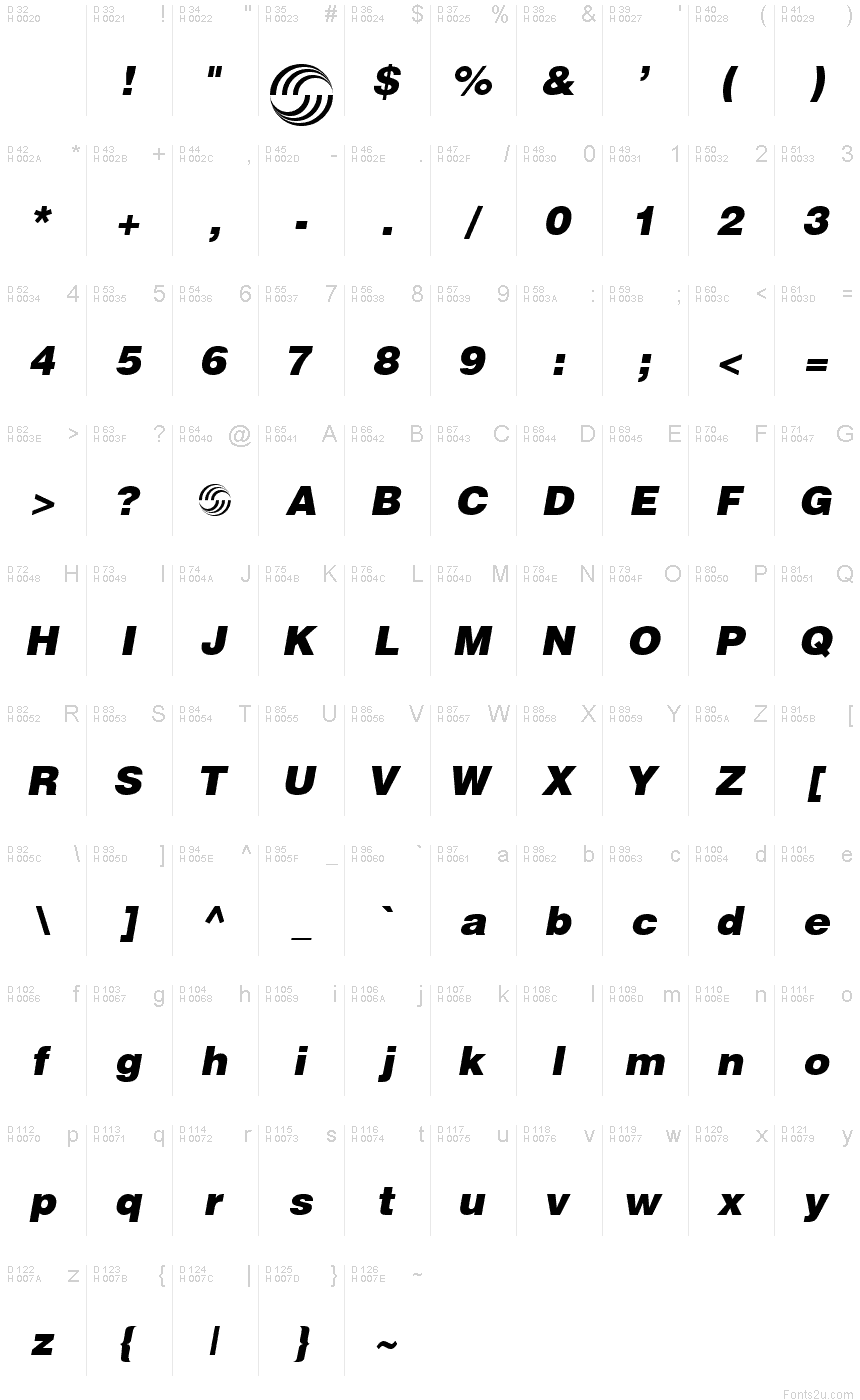
Airbus Special
Airbus Special font is a free sans serif typeface with a strong, forward-leaning stance that feels made for motion. The bold weight, tight spacing, and italic slant give every word a sense of speed, like it’s been caught mid-takeoff. Thick, blocky strokes keep it readable while the slanted forms and clean edges add that slick, engineered feel you expect from aviation and motorsport branding.
Using Airbus Special, you can give logos, racing posters, esports graphics, tech product packaging, sports jerseys, and transport signage a punchy, high-energy voice. This free font shines when you set it large and bold, letting the heavy diagonals do the talking. Pair it with a simple, neutral sans serif or a light-weight grotesk for supporting text to keep your layouts sharp and streamlined.
This font has Ailogo in #(big) and @(normal)